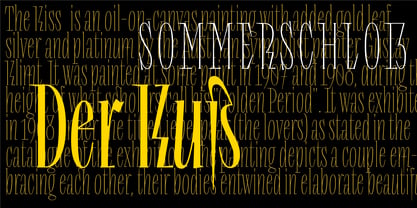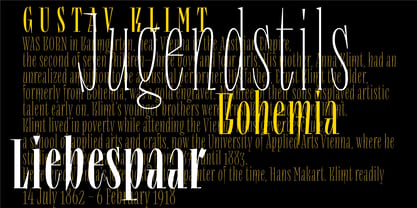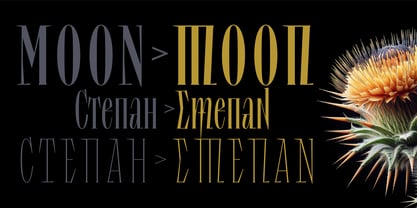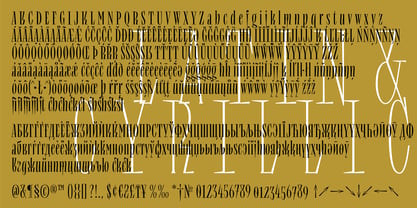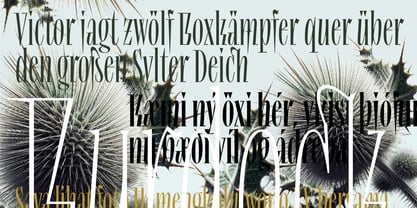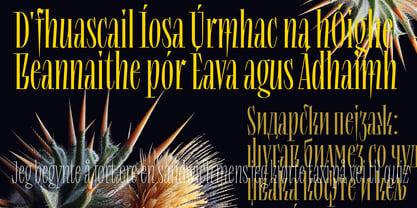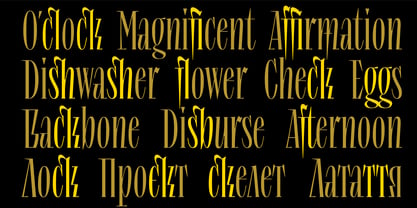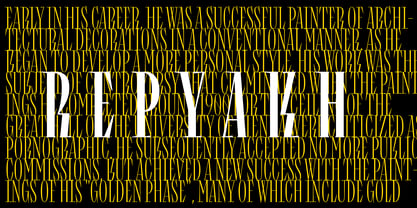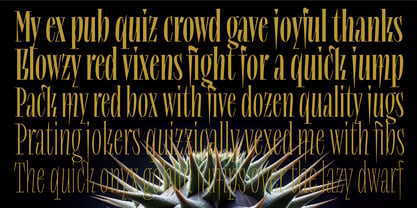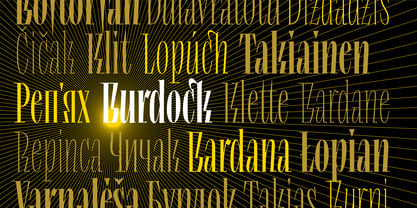
Lev Type Repyakh
The Lev Type Repyakh Font Family was designed by Dmitry Rastvortsev, Lev Rastvortsev and published by Lev Type. Lev Type Repyakh contains 5 styles and family package options. More about this family
Repyakh is a display variable font + 4 styles of different weight inspired by the letterings of the famous Ukrainian graphic artist Mykola Butovych. Repyakh is a contemporary display typeface designed for those who seek high-impact visual communication. Defined by its aggressive, sharp terminals and crystalline structure, this font commands attention in any layout. Its "stinging" aesthetics are balanced with precise geometry, making it an ideal choice for bold branding, editorial headlines, and cutting-edge digital interfaces.
Designers: Dmitry Rastvortsev, Lev Rastvortsev
Foundry: Lev Type